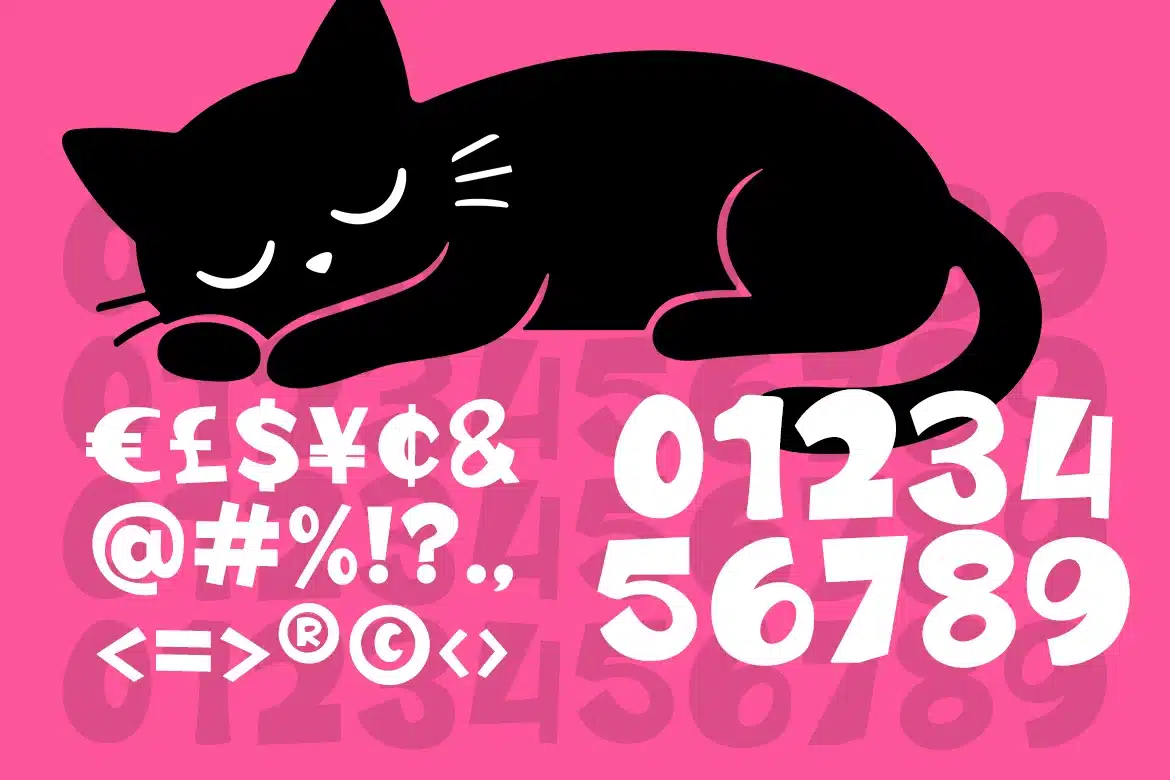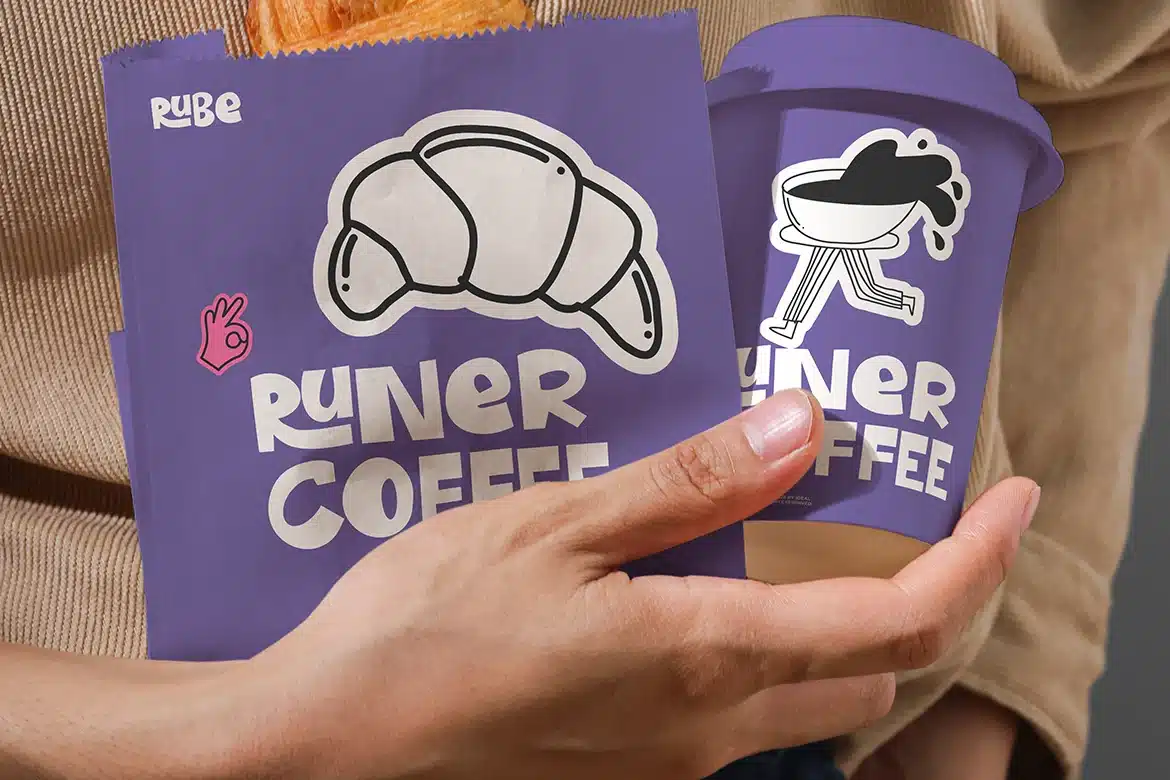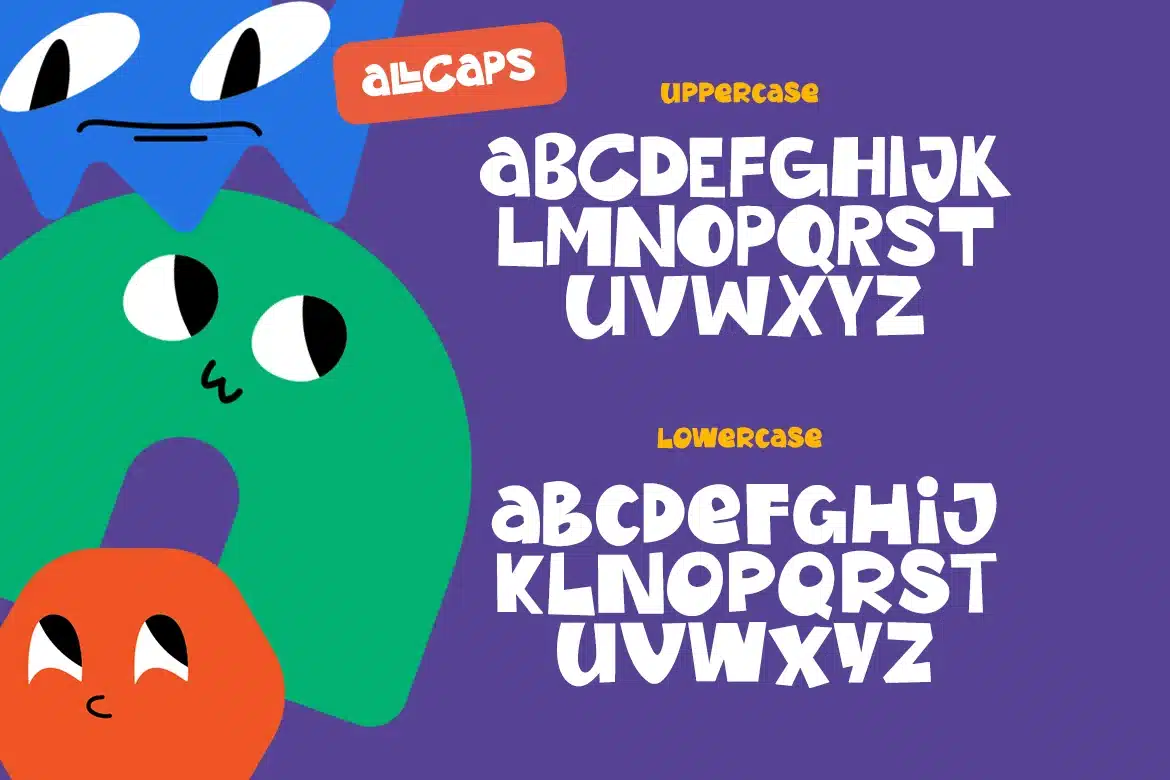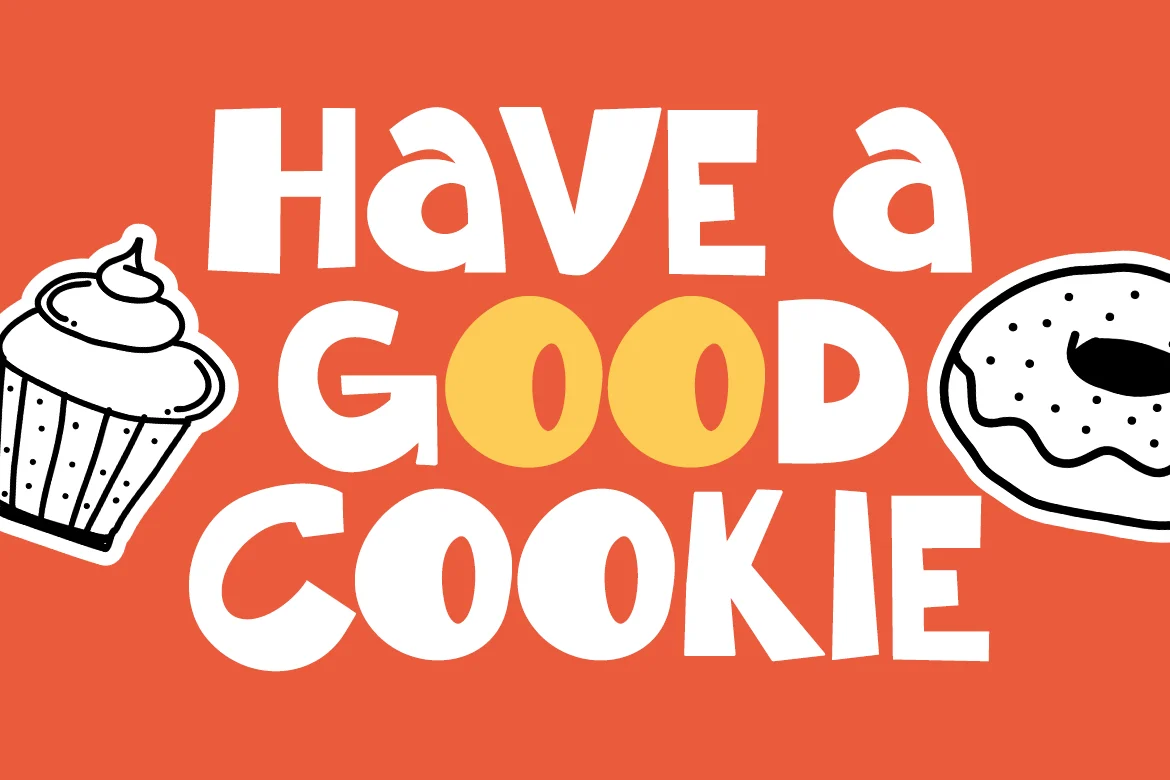
Rube – Food Font
Rube is a bold, whimsical display typeface with chunky, geometric letterforms and playful alternates. Its strong, blocky structure is softened by quirky ligatures and fun character details, giving the font a lively, cartoon‑like personality. The design balances impact with humor, making it perfect for creative branding, posters, and projects that want to stand out with boldness and charm.
- (ALLCAPS FONT)
- Alternates & Ligature
Perfect for
- Bakery and café branding
- Food and beverage logos
- Restaurant menus and signage
- Coffee shop and donut shop designs
- Food packaging and labels
- Social media food promotions
- Kitchen-themed posters and prints
- Culinary blogs and recipe graphics